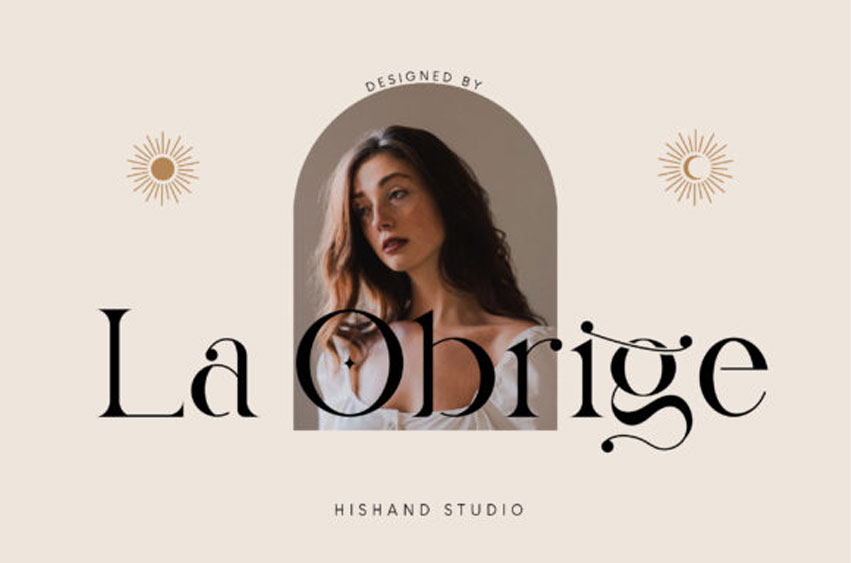
La Obrige Font
La Obrige Font is a unique serif font. Whether you’re using it for crafting, digital designing, presentations, or greeting card making, it’s perfect!
Fall in love with its incredibly versatile style and use it to create spectacular designs!